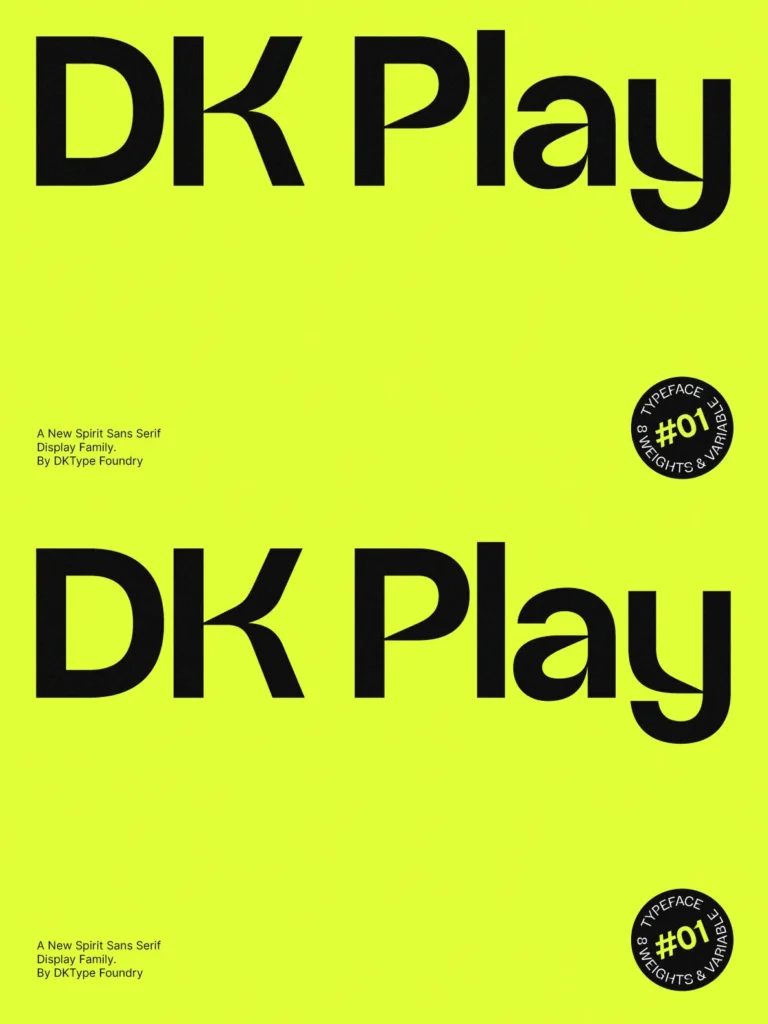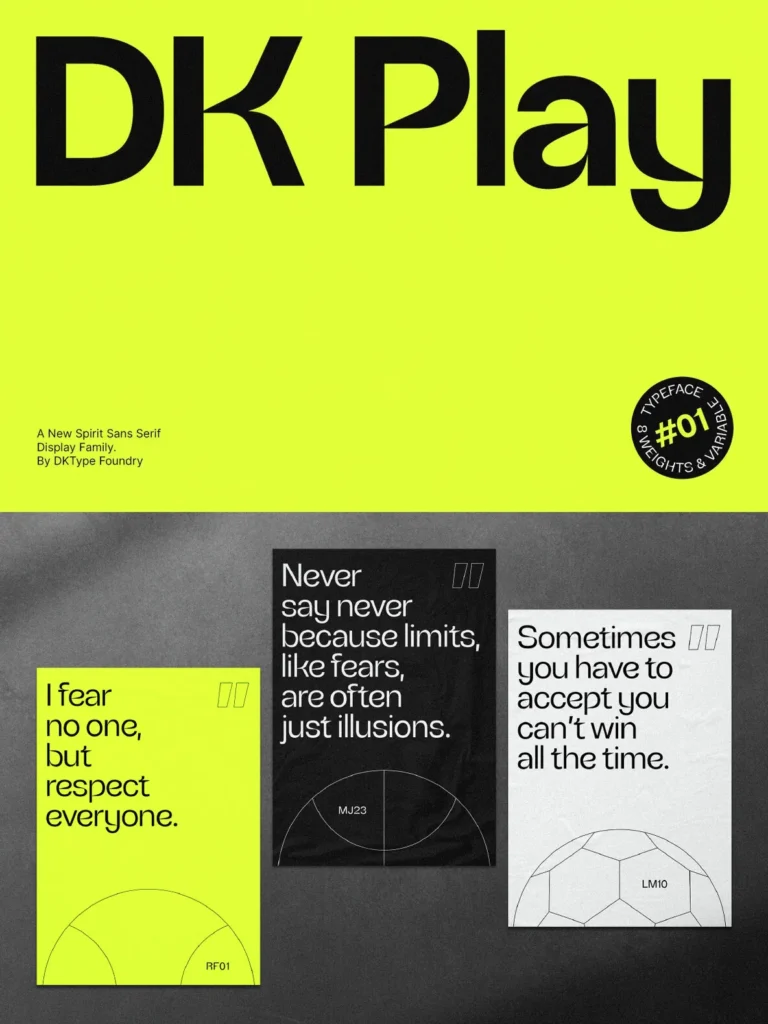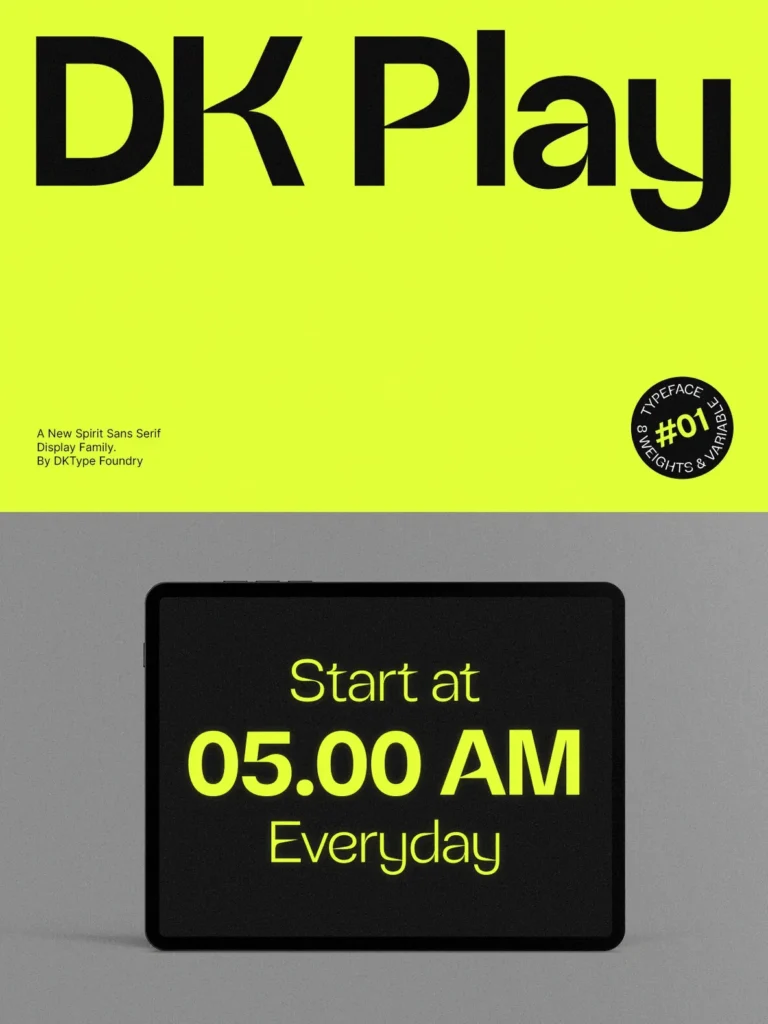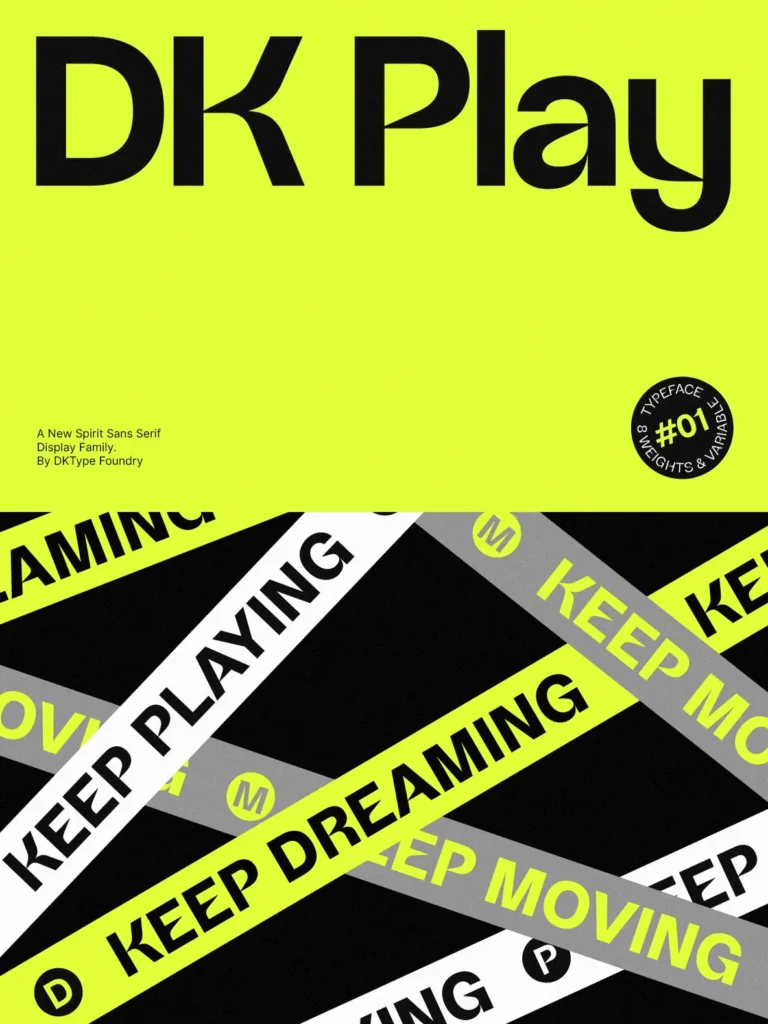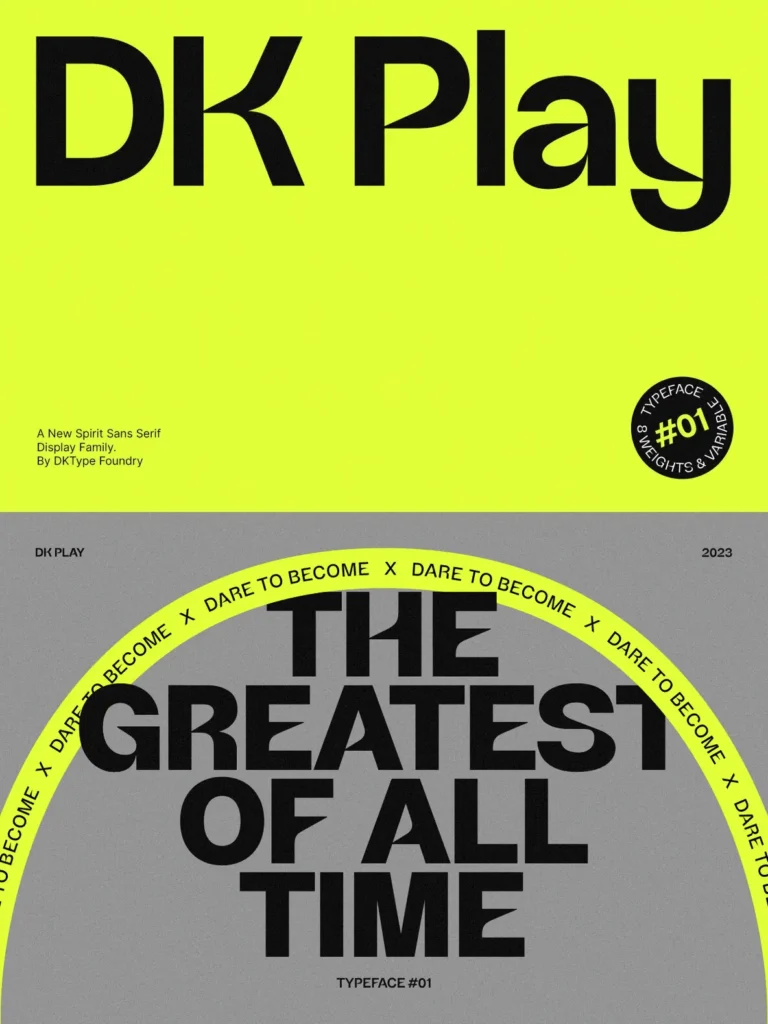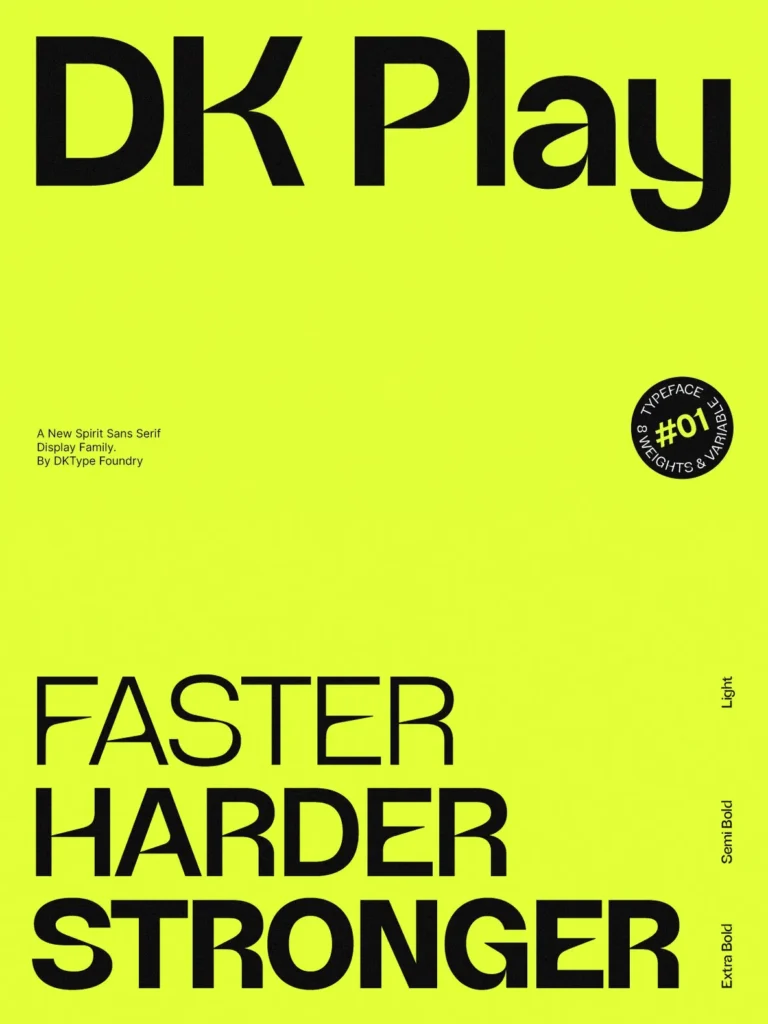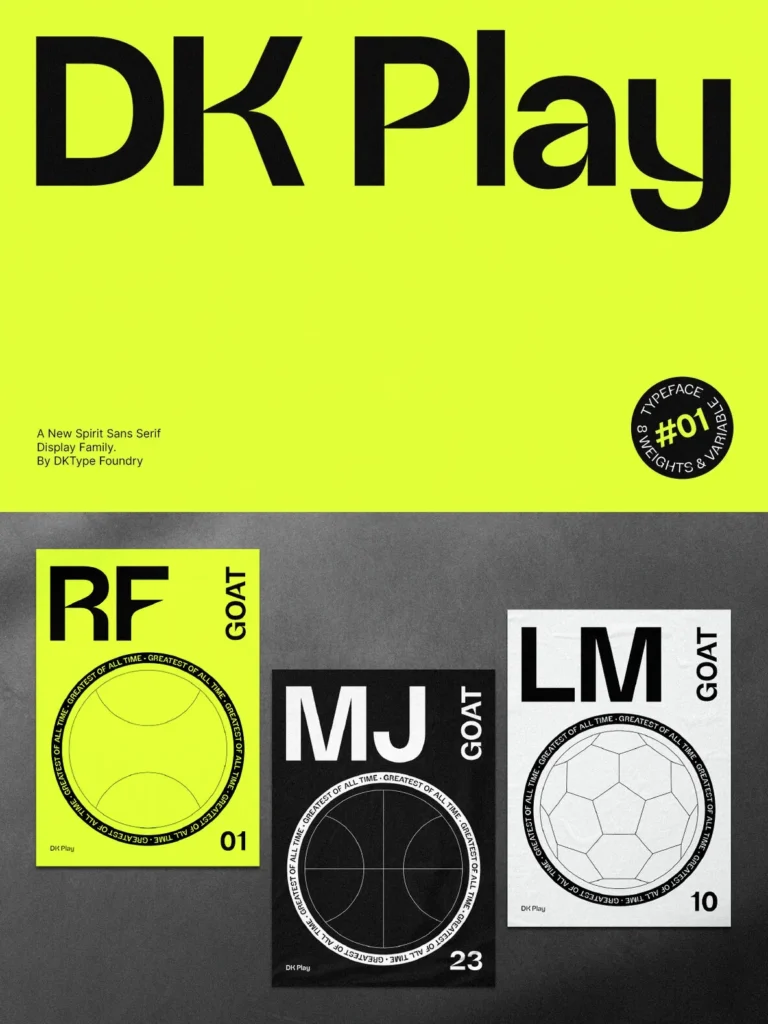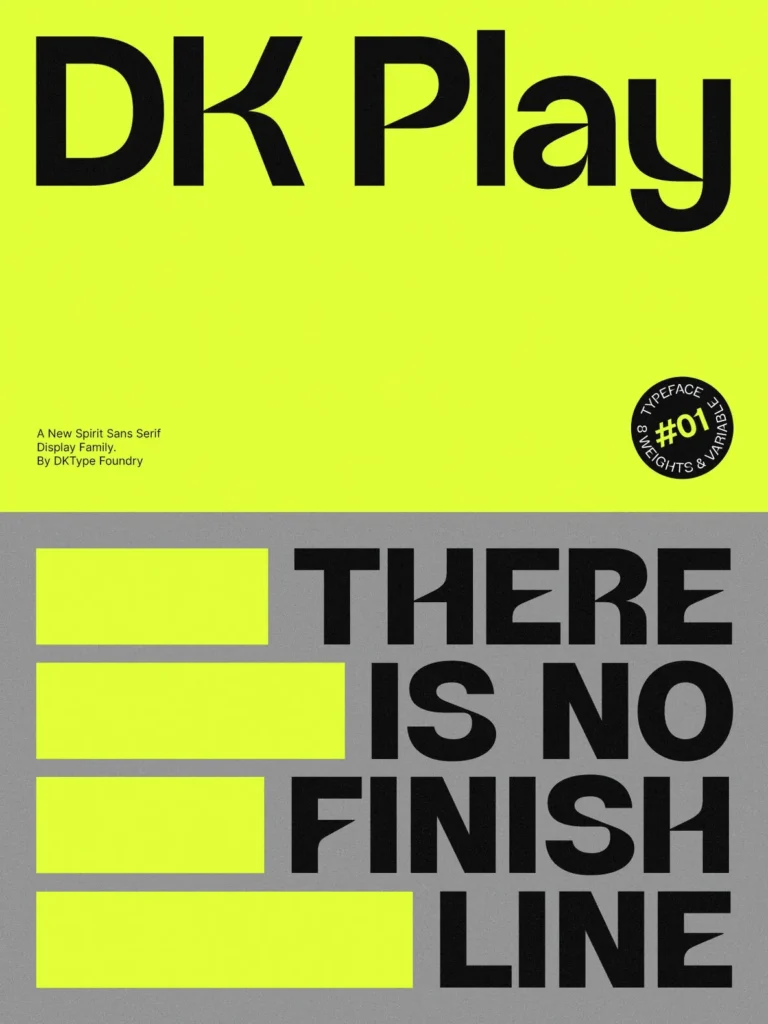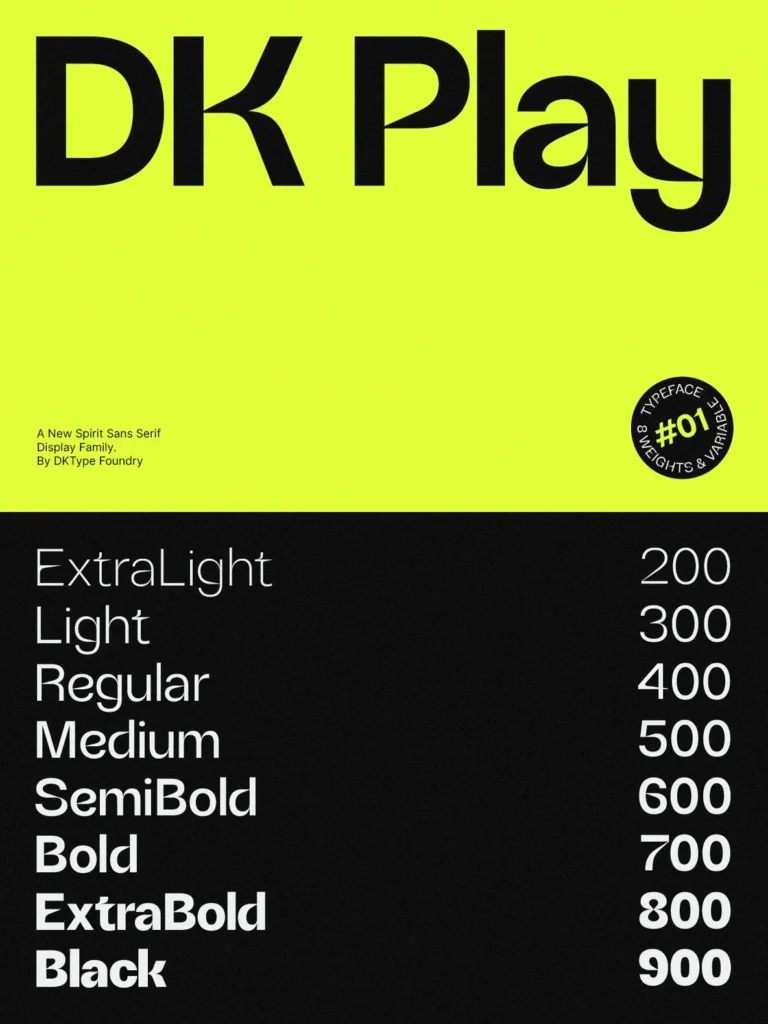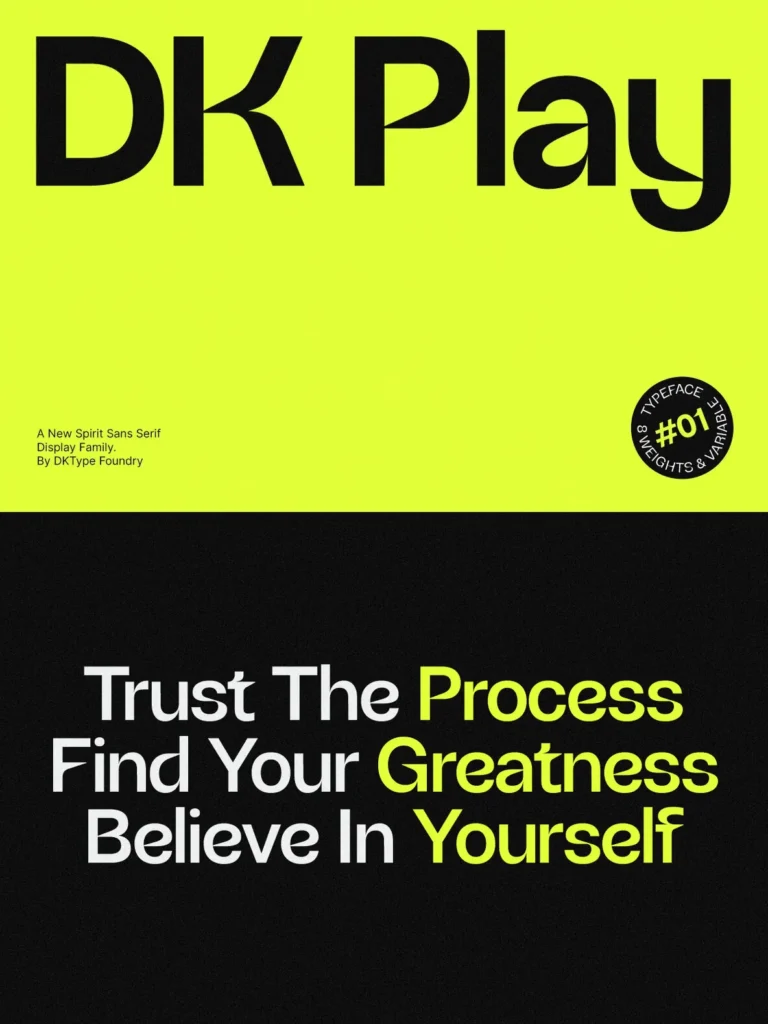
DK Play Font
DK Play: A Dynamic Sans-Serif for Sports Aesthetics
Created by Darman Kadir, DK Play is a sans-serif typeface offering a modern twist on iconic Swiss typography. Drawing inspiration from renowned classics such as Helvetica, this design emerges as a robust alternative for amplifying sports and apparel visuals. Its bold aesthetic ensures a striking presence, catering to environments where dynamic energy is essential.
Features
Solid Structure
– Conveys strength and speed.
Enhanced Visibility
– Distinct characteristics for brand prominence.
Versatile Application
– Suitable for sports and activewear branding.